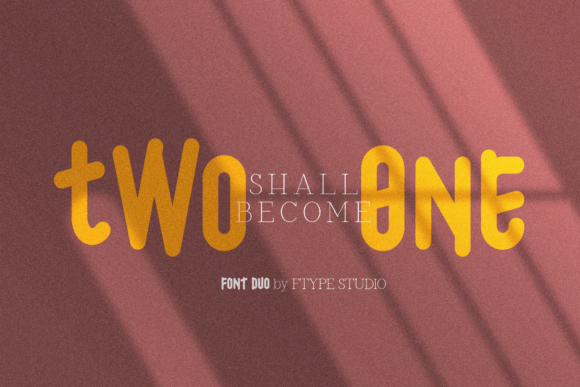
Journey into the captivating realm of typography with the enthralling TwoOne font, a serif masterpiece crafted by the visionaries at Factory738. This exquisite font family holds the key to unlocking a world where vintage charm meets contemporary elegance, adding an enchanting touch to any design endeavor.
TwoOne's graceful curves and delicate flourishes evoke a sense of nostalgia, yet its clean lines and modern aesthetic ensure it stands as a timeless classic. Whether you're crafting elegant invitations, designing captivating magazines, creating heartfelt greeting cards, or dreaming up logos that leave a lasting impression, TwoOne is your steadfast companion.
Transform your creative projects into captivating works of art with TwoOne, the font that weaves a spell of sophistication and timeless grace. Welcome to a world where words take flight, leaving an indelible mark on hearts and minds.